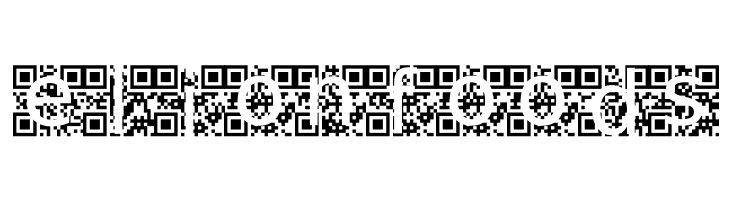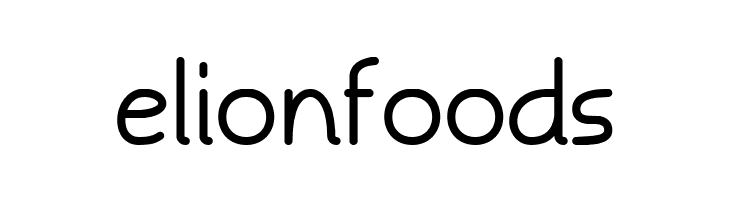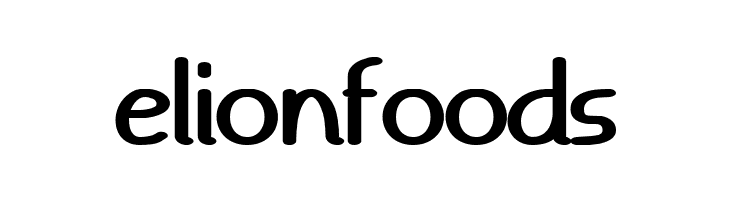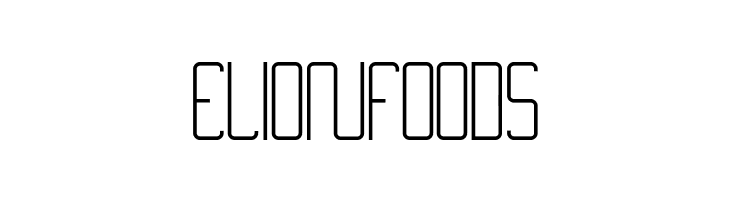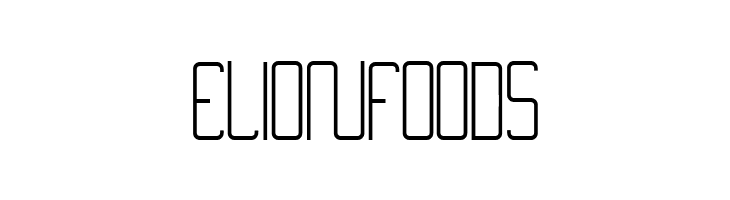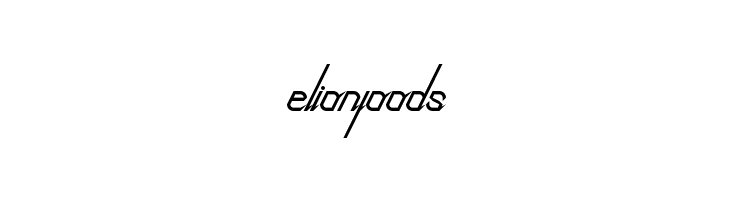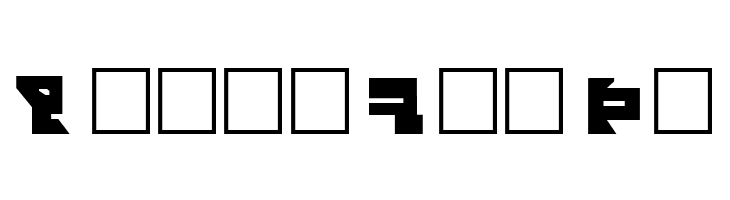
( Rainkarnichi - Aydi Rainkarnichi - github.com/rainkarnichi )
A display font using QR code-inspired symbols for each character.
( Rainkarnichi - Aydi Rainkarnichi - github.com/rainkarnichi )
A symbolic, QR code-inspired set for encoding alphanumeric data.
( Ruben Holthuijsen )
A modern, rounded font with a clean and approachable design.
( Ruben Holthuijsen )
A bold, rounded font with a playful and approachable style.
( Tharique Azeez - niram.org )
A modern, geometric font with thin, elongated characters and a sleek design.
( Tharique Azeez - niram.org )
A modern, geometric font with a sleek, futuristic design.
( softhunterdevil - Saptarshi Bagchi )
Pixel-art decorative font with nightscape illustrations.
( softhunterdevil - Saptarshi Bagchi )
A futuristic, angular font with a sleek, slanted design.
( Giedi Prime )
A geometric, abstract font with a futuristic and mechanical style.
( Rainkarnichi - github.com/rainkarnichi )
A pixelated, digital-themed font with a QR code-like design.